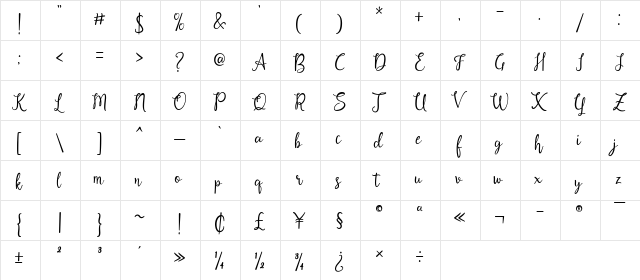
Alysha Regular Font Preview
Alysha Regular
Alysha Regular Font Details
Design Context for Alysha Typeface
Alysha is a composed and adaptable typeface that performs quietly and consistently across a wide range of design contexts.